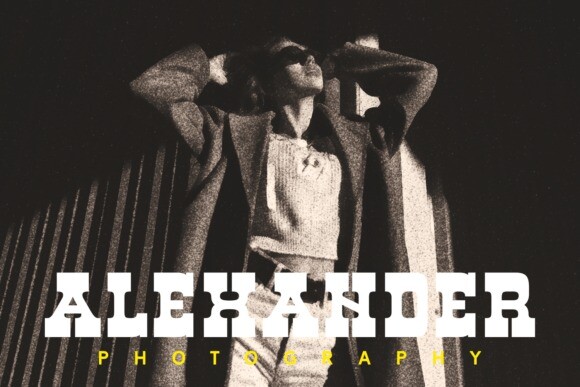
Never Loser Font
Never Loser Font, a bold and confident slab serif font that stands tall in any design arena. With its robust and distinctive letterforms, Never Loser exudes strength and resilience. Ideal for conveying a sense of power and reliability, this font is perfect for logos, headlines, and branding projects. Embrace a winning aesthetic with Never Loser, where each character is crafted to make a lasting impression with its timeless and impactful design.